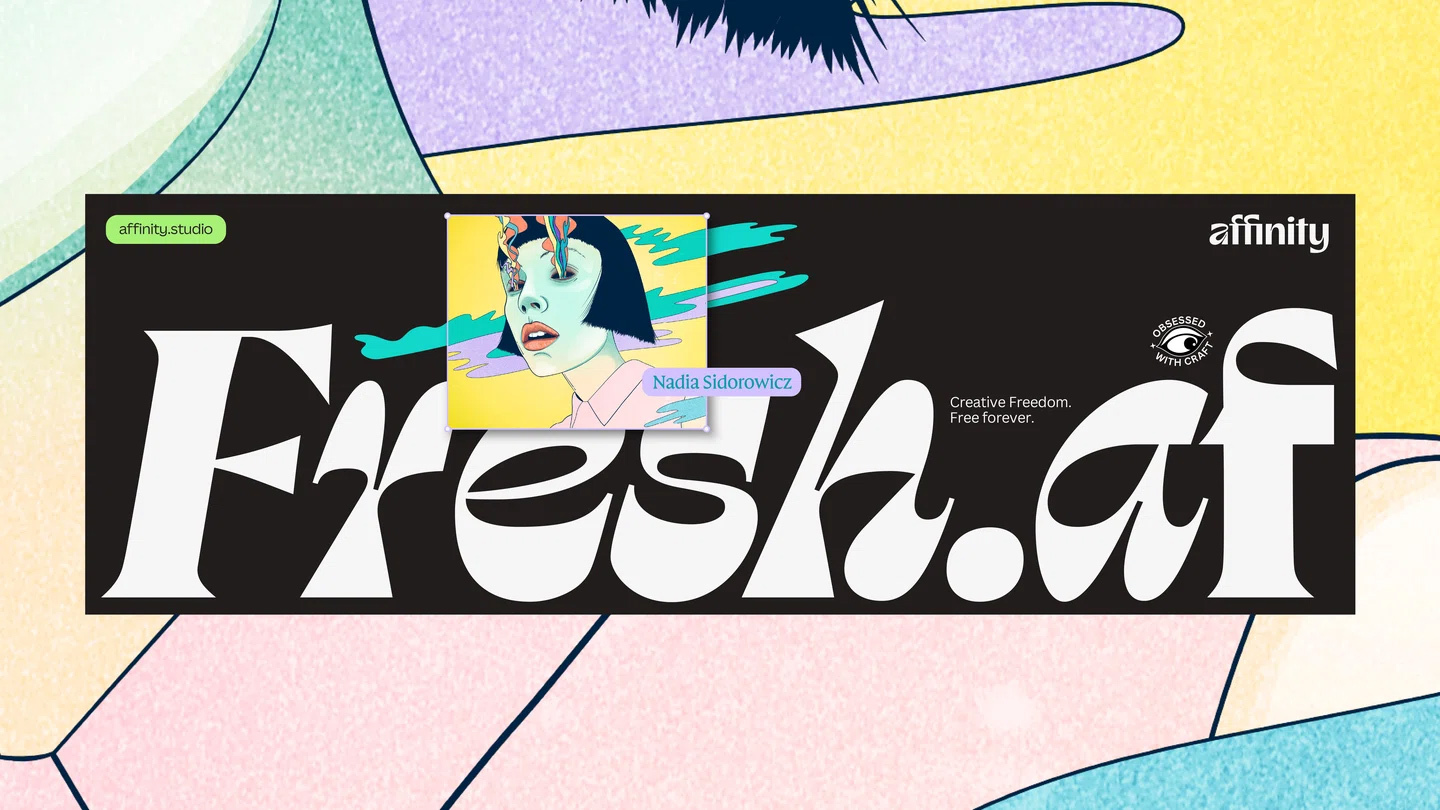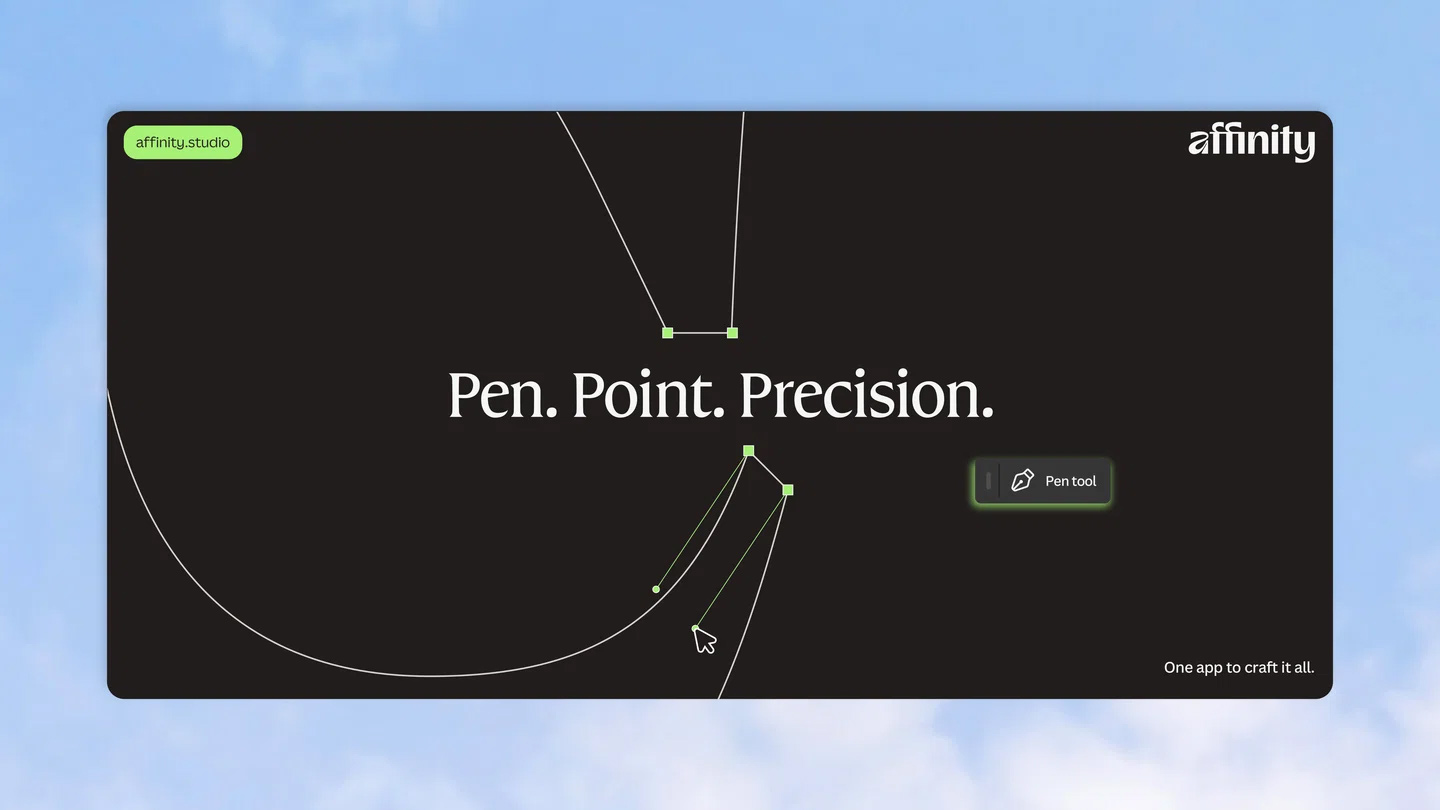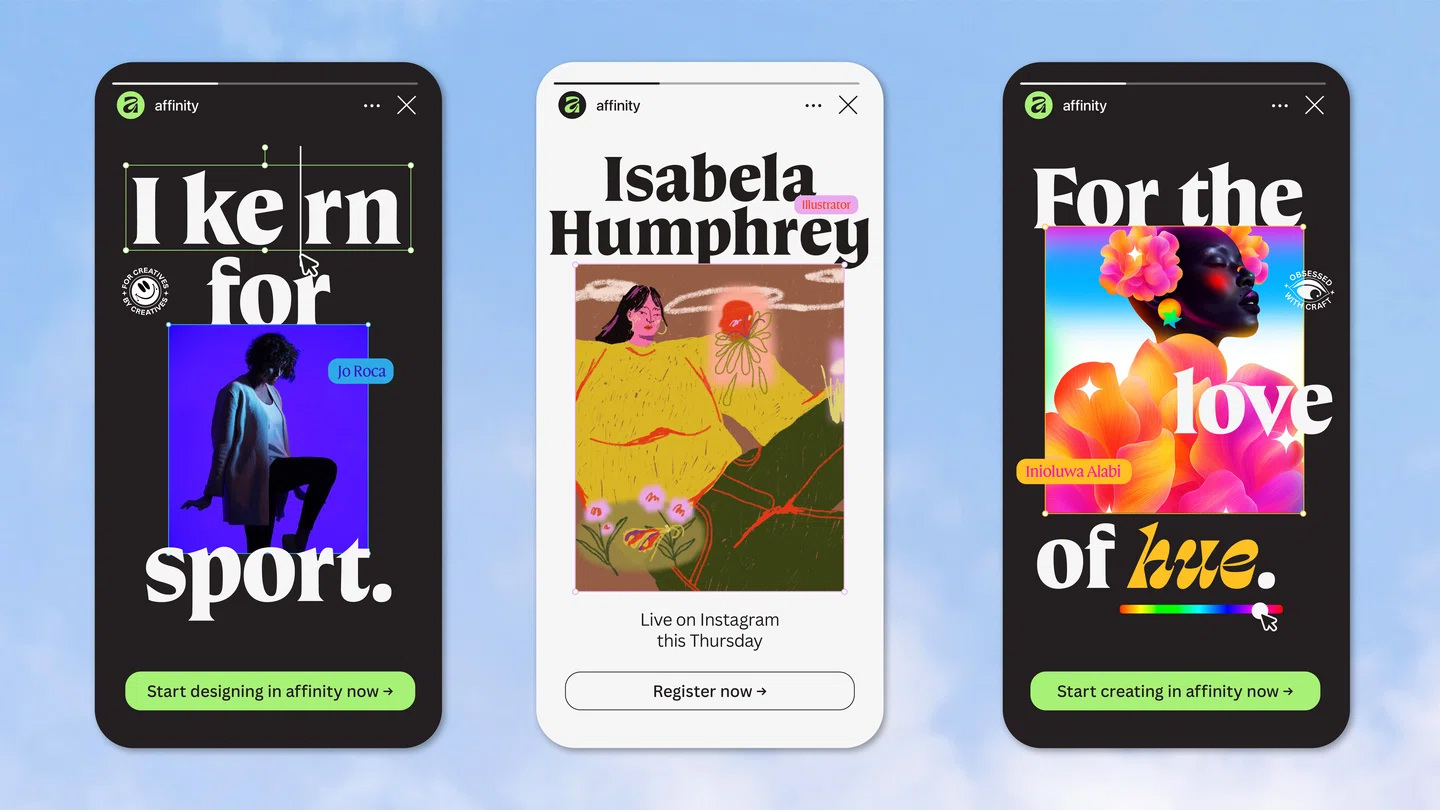
The lovely team at Canva got in touch with us for the rebrand of Affinity, their professional-level graphics software. We were honored to contribute something so deeply related to the graphic arts. We took our existing typeface Swear to a new place to make it a distinct and ownable representation of their brand. The Canva team pushed beyond expected solutions to create a unique family of six styles to assist in their “fresh.af” ad campaign. It was news to us when the rollout began and Affinity announced the software was free for everyone. That was quite a surprise, and we were thrilled to be involved.
Affinity Serif
Early explorations looked at many different options for serifs in roman and italic. Eventually they landed on the bottom right, and refinement began.